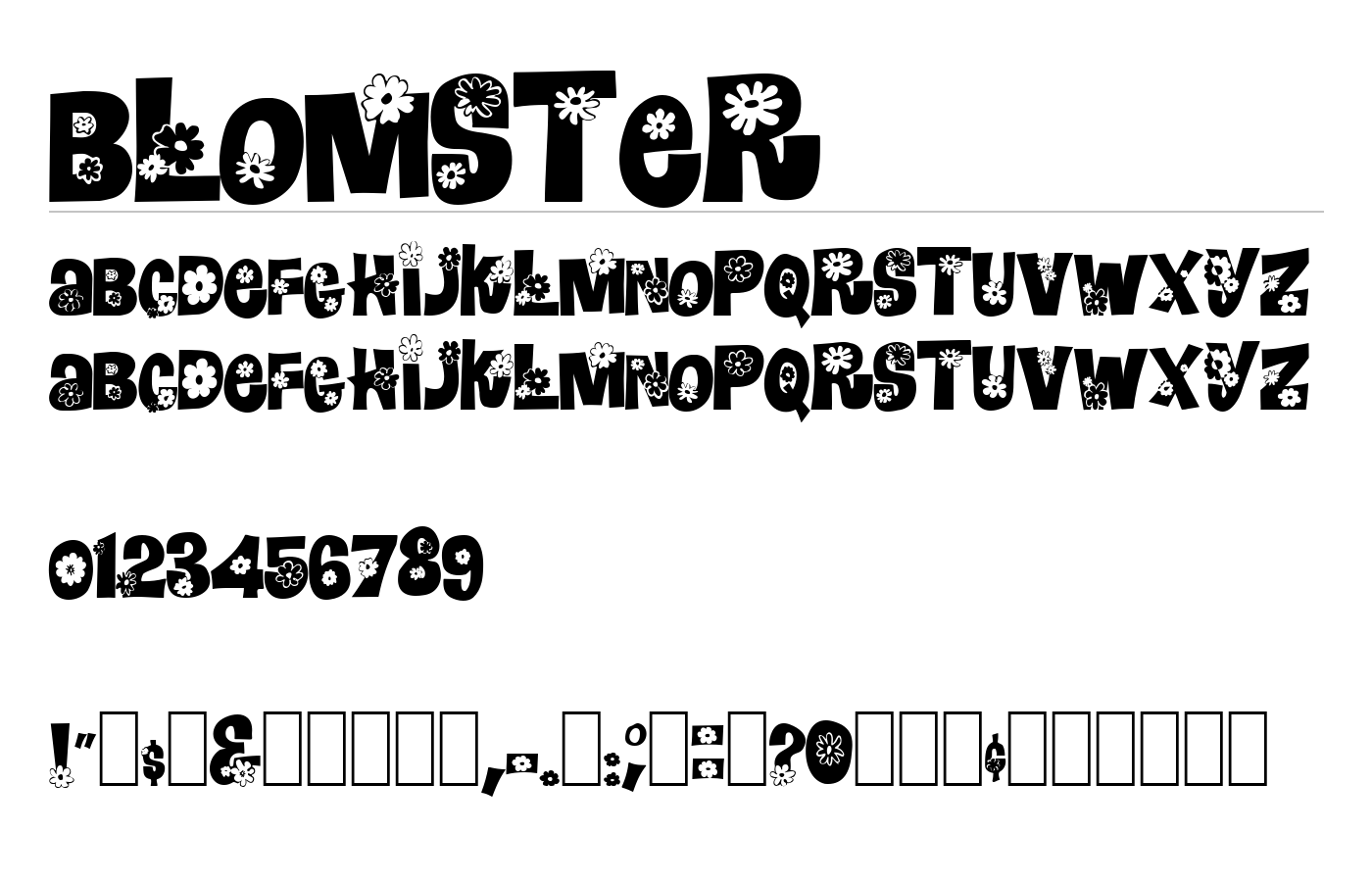
Blomster is a bold, playful display font with a chunky, rounded style and whimsical flower embellishments integrated into each character. Its high-contrast, decorative design radiates a fun, retro vibe, making it perfect for lively branding, children’s designs, party invitations, or any project seeking a cheerful, eye-catching look. This font works best at large sizes where its unique floral details can shine and add a joyful personality.
Blomster Font
About Blomster Font